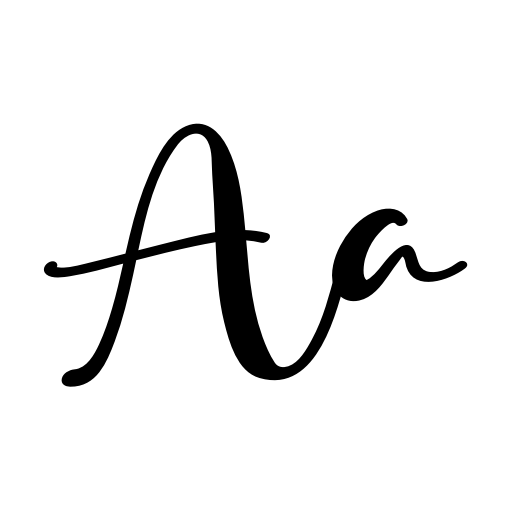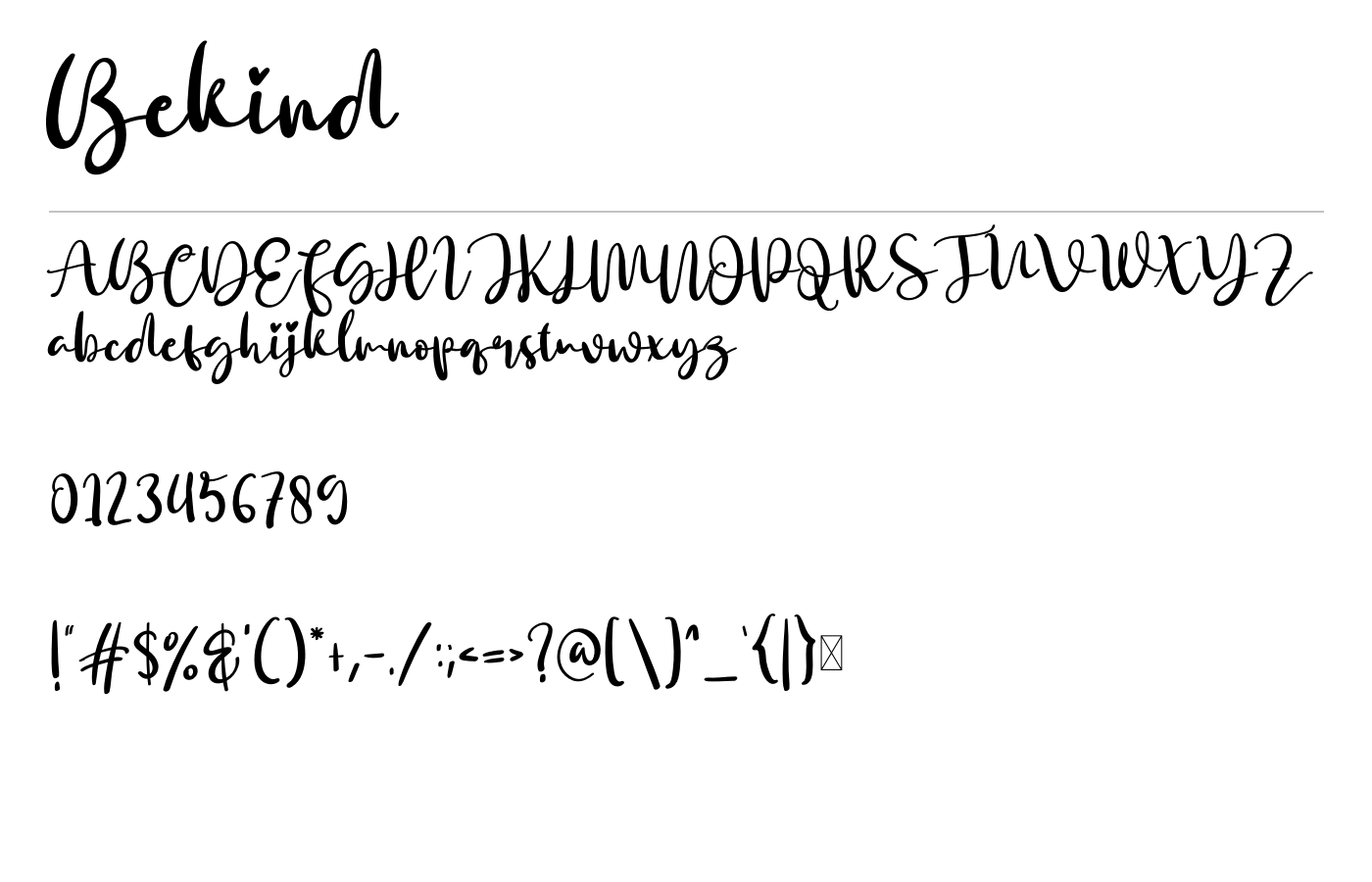
Bekind is a charming script font with a playful, handwritten style that features smooth, flowing strokes and heart-shaped dot accents, adding a touch of warmth and friendliness. Its moderate contrast and casual elegance make it perfect for creative projects, invitations, and branding that seek a personal, approachable feel. This font shines best in logos, greeting cards, and social media where a casual yet stylish impression is desired.
Bekind Font